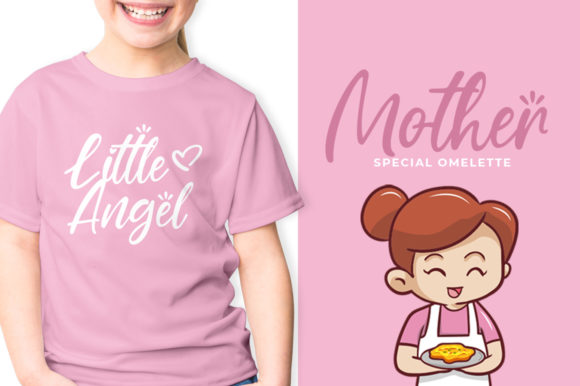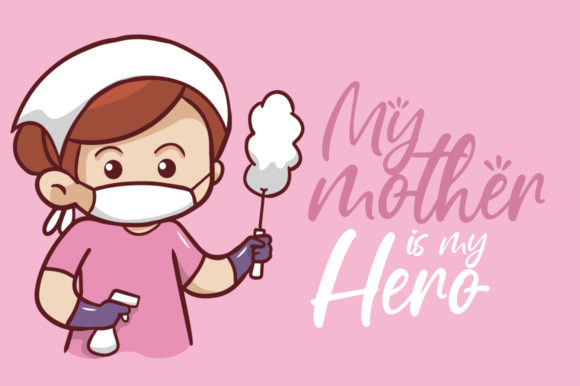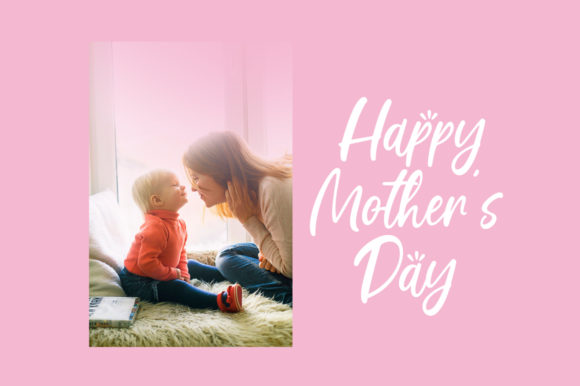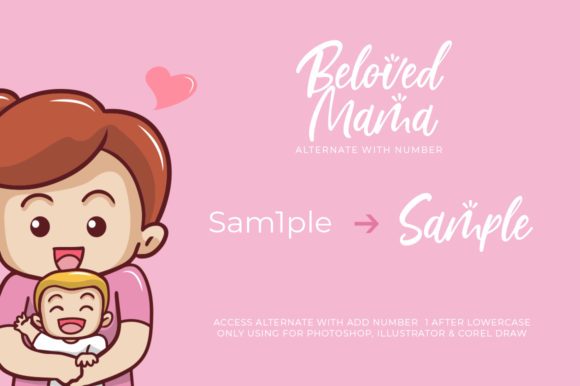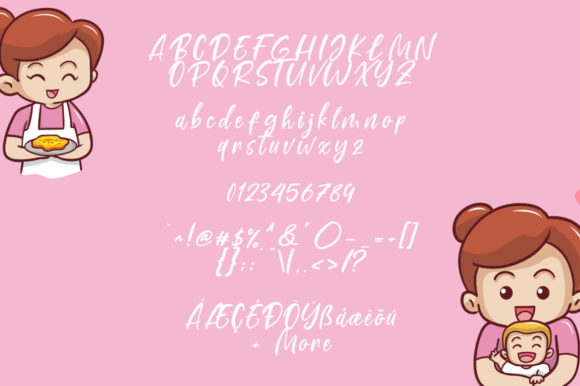
Introducing a Timeless Touch: Beloved Mama Font
Do you ever find yourself rummaging through old trunks, dusty photo albums, or grandma’s attic, only to stumble upon a faded letter or a beautifully handwritten recipe? For many of us, these forgotten treasures spark a sense of nostalgia and creativity. It’s in these moments that we’re reminded of the beauty of handwritten fonts and the stories they tell.
Meet the Beloved Mama Font, a delicate and elegant handwritten font that’s perfect for adding a touch of whimsy and personality to your designs. Whether you’re a stationery enthusiast, a crafty blogger, or a graphic designer, this charming font is sure to delight. With its sweet swashes and dainty details, the Beloved Mama Font is an original look that’s sure to appeal to a wide range of creative projects.
As a designer, you know that the right font can make all the difference in bringing your vision to life. The Beloved Mama Font is a valuable addition to any design toolkit, offering a unique and timeless touch that’s perfect for elevating your next project.
Key Features of Beloved Mama Font
- Font Style: Beloved Mama is a handwritten font with a unique, cursive design.
- Unique Characteristics: Features swashes, flourishes, and other decorative elements to add a personal touch to your designs.
Beloved Mama Font Review
Overall, I have mixed feelings about the Beloved Mama Font. While it has its charm, there are certain aspects that limit its usability. ✨
- ✨ Unique and feminine touch: The font has a soft, elegant feel that can add a touch of warmth to designs.
- ✨ Wide range of languages supported: The font includes a vast array of languages, making it a great choice for international designs.
- ✨ High-quality vector format: The font is available in vector format, ensuring crisp and clear results regardless of the size.
- ⚠️ Limited font sizes: The font starts to distort at larger sizes, making it less suitable for titles or headings.
- ⚠️ Limited bold and italic options: The font’s bold and italic versions are not as robust as the regular version, which can make them less effective for emphasis.
- ⚠️ Compatibility issues with older software: The font may not be compatible with older design software or operating systems.
The Beloved Mama Font is a great choice for designs that require a touch of elegance and femininity. However, its limitations in terms of font sizes, bold and italic options, and compatibility may make it less suitable for more complex designs or those that require a lot of customization.
For best results, use the Beloved Mama Font in titles, headings, and quotes to add a touch of elegance and sophistication. It’s also ideal for creating custom invitations, gift tags, and other personalized items. Experiment with different font sizes and styles to create a unique and eye-catching design.